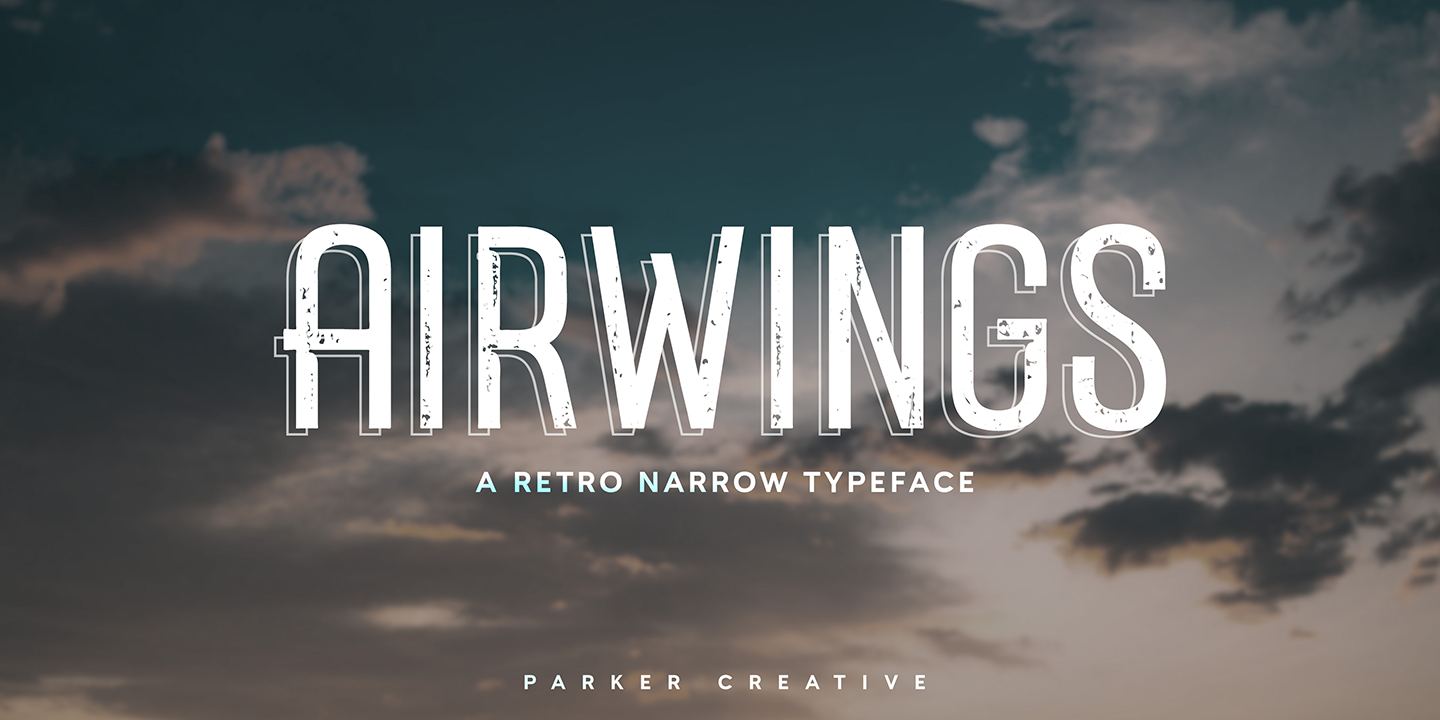
Airwings Font demonstrates remarkable versatility across aviation-inspired design applications including airline branding systems, aircraft manufacturer logos, aviation academy materials, pilot training graphics, aerospace company identities, flight simulator interfaces, aviation museum signage, air show promotional materials, drone technology branding, and aviation-themed lifestyle products. This dynamic typeface seamlessly combines aerodynamic precision with soaring elegance, making it an invaluable resource for designers working on projects that celebrate flight, freedom, and the limitless possibilities of aviation technology.
What makes Airwings Font particularly exciting is its masterful embodiment of flight dynamics through sleek, streamlined letterforms that seem to cut through air with the grace and precision of a perfectly engineered aircraft wing. The font features aerodynamic characters with subtle angular elements and optimized spacing that evoke the smooth flow of air over wing surfaces and the effortless movement of flight. Its sophisticated design incorporates aviation engineering principles with contemporary typography standards, creating perfect harmony between technical precision and artistic expression. The typeface's ability to convey both speed and stability makes it perfect for brands seeking to capture the essence of aviation while maintaining the reliability essential for aerospace communication. Each character has been meticulously engineered to maximize aerodynamic visual impact while ensuring excellent readability across flight-related materials, from cockpit displays to large-scale airport signage.
The Airwings Font family encompasses comprehensive variations including Light, Regular, Medium, Bold, and Black weights, each maintaining the core aerodynamic aesthetic while offering different levels of aviation intensity and visual lift. The family also features condensed versions for space-efficient cockpit layouts and extended variants for maximum impact in runway-scale applications. Special aviation cuts may include italicized versions that enhance the sense of forward motion, outline styles that emphasize the wing-like character, and technical variants optimized for aviation instrumentation and aerospace documentation requirements.
Aviation professionals consistently choose Airwings Font Free Download for projects requiring authentic flight appeal and aerospace communication excellence. This exceptional typeface has gained recognition in the aviation industry for its ability to instantly evoke the spirit of flight and technological advancement through expertly crafted aerodynamic typography. The font's specialized OpenType features include directional alternates, aviation-themed ligatures, and technical symbols that support comprehensive aerospace branding and flight communication needs.
Whether you're developing aviation company identities, creating aerospace marketing materials, designing flight training resources, or crafting aviation lifestyle branding, Airwings Font delivers outstanding results. Its aerodynamic aesthetic makes it particularly appealing to airlines, aircraft manufacturers, flight schools, aerospace engineers, and aviation enthusiasts seeking to communicate precision, innovation, and the eternal human dream of flight through their visual identity.
The font's technical excellence ensures optimal performance across all aviation applications while preserving its flight-inspired character. It includes comprehensive character encoding that supports international aviation markets, making it suitable for global aerospace brands and multilingual flight communication requirements. The careful optimization guarantees consistent rendering across various aviation media, maintaining the font's aerodynamic qualities whether displayed on digital flight systems or printed on aviation technical documentation.
Professional designers value Airwings Font's ability to convey aviation excellence and flight innovation while maintaining commercial reliability and brand effectiveness. Its streamlined presence creates immediate associations with precision and technological advancement while remaining highly functional for comprehensive aviation branding systems. The font's wing-inspired design helps organizations establish credibility in aerospace markets while connecting with audiences who dream of flight, value engineering excellence, and appreciate the remarkable achievement of human aviation.